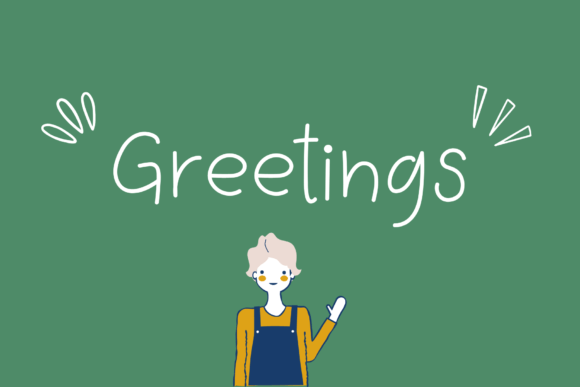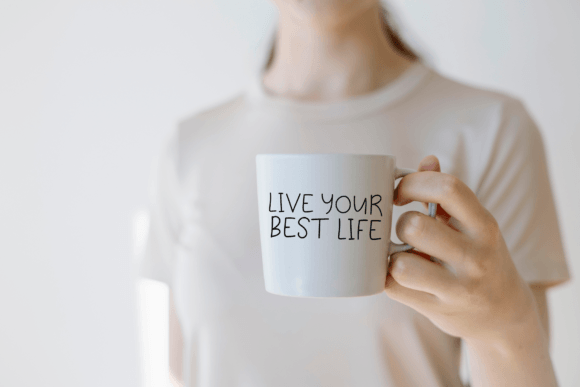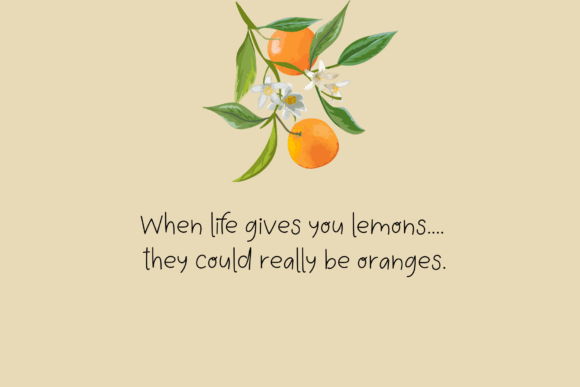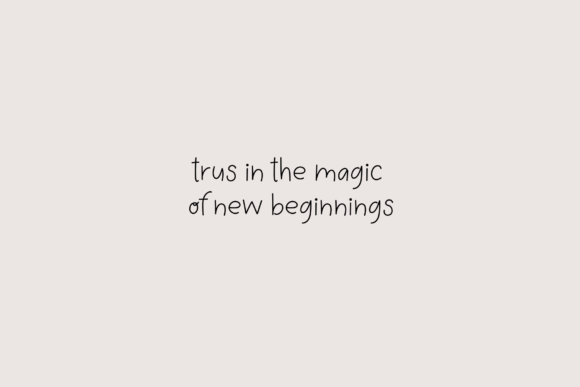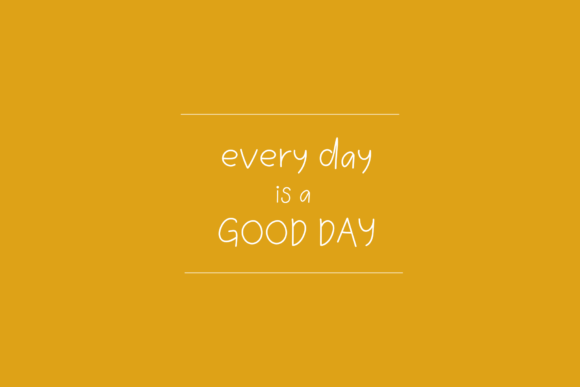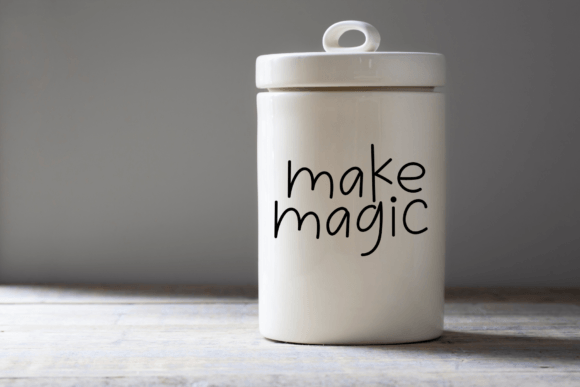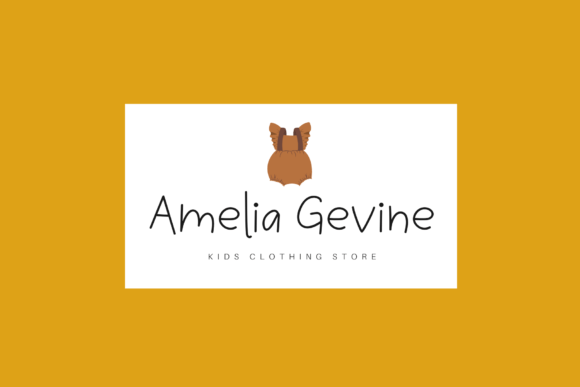
Have you ever stared at a blank design canvas, searching for that perfect spark to bring your project to life? You know, that moment when you wish you could infuse your work with a dash of personality and charm? It’s a feeling every designer is familiar with, and it’s exactly what our Greetings Font is designed to evoke.
Our Greetings Font is more than just a cute font – it’s a tool to add a playful touch to your designs. Whether you’re working on a greeting card, invitation, or social media graphic, this adorable font will bring a whimsical energy to your work. And for designers, it’s a valuable asset that can elevate their projects and set them apart from the crowd. With the Greetings Font, you’ll be able to create designs that are both professional and playful, making it a must-have for any creative project.
Greetings Font Key Features
- Font Style: A unique, hand-drawn font with a friendly and approachable feel, suitable for various greeting cards and invitations.
- Character Set: Includes a wide range of characters, including uppercase and lowercase letters, numbers, punctuation marks, and special symbols.
- Language Support: Supports a wide range of languages, including Latin, Cyrillic, and Greek alphabets, making it suitable for international designs.
- Unique Characteristics: Features a distinctive, flowing style with subtle imperfections, giving it a personal and handmade feel.
Greetings Font Review
Overall, I think the Greetings Font has some great qualities, but it also has some limitations that prevent it from being a top choice for me.
- The font’s playful and energetic vibe is perfect for creating a welcoming atmosphere in logos, signage, and other branding materials.
- The font’s varying line heights and character spacing give it a nice, dynamic feel that makes it stand out.
- The font’s compatibility with a wide range of devices and platforms is a major plus.
- The font’s design can be a bit too busy and overwhelming, especially at smaller font sizes.
- The font’s lack of consistency in its letterforms and shapes can make it look a bit amateurish at times.
- The font’s limited language support is a major drawback for designers who need to work with non-English text.
While the Greetings Font has some great qualities, its limitations prevent it from being a go-to choice for me. With a bit more refinement and attention to detail, I think this font could be a real winner.
Some common use cases for Greetings Font include:
- Creating invitations for special occasions.
- Designing greeting cards for holidays or birthdays.
- Adding a touch of elegance to business presentations.
Remember to experiment with different font sizes, colors, and styles to get the most out of Greetings Font.
Alternatives to Greetings Font for Designers
Pacifico is a beautiful, elegant script font that is perfect for creating a sense of warmth and sophistication. It is ideal for use in wedding invitations, greeting cards, and other special occasion designs. Compared to Greetings Font, Pacifico has a more refined and delicate feel, making it suitable for more formal and luxurious designs.
Carolyna Pro is a modern, cursive script font that is great for creating a sense of elegance and sophistication. It is perfect for use in high-end branding, advertising, and editorial designs. Compared to Greetings Font, Carolyna Pro has a more contemporary feel and a wider range of font weights, making it suitable for a variety of design applications.
Great Vibes is a beautiful, handwritten font that is perfect for creating a sense of playfulness and whimsy. It is ideal for use in creative and artistic designs, such as music posters, fashion designs, and children’s book illustrations. Compared to Greetings Font, Great Vibes has a more casual and relaxed feel, making it suitable for more casual and creative design applications.
Dancing Script is a elegant, cursive font that is perfect for creating a sense of luxury and sophistication. It is ideal for use in high-end branding, advertising, and editorial designs. Compared to Greetings Font, Dancing Script has a more refined and elegant feel, making it suitable for more formal and luxurious designs.